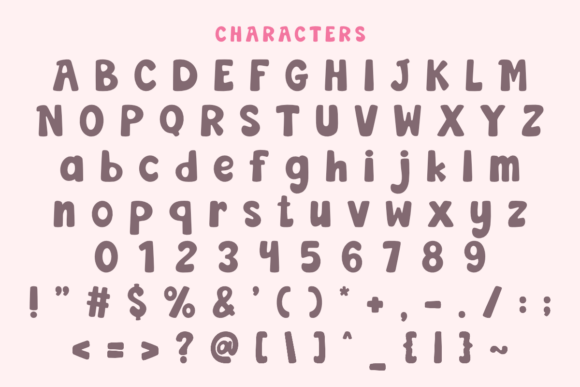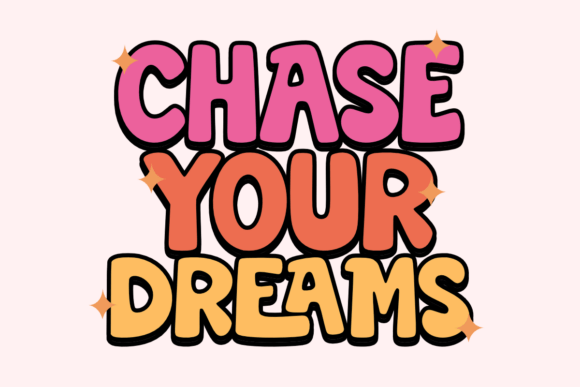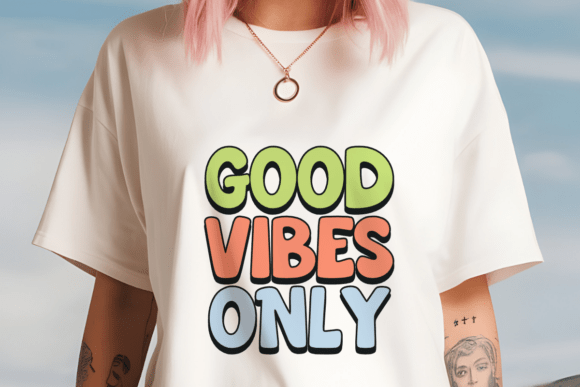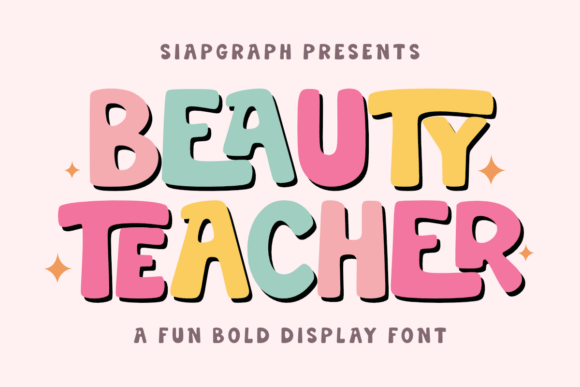
Introduction to Beauty Teacher Font
Beauty Teacher is a fun and bold display font that radiates joy and creativity.
With its chunky and colorful letterforms, this font is perfect for making your designs stand out in a cheerful and friendly way Ideal for branding, classroom projects, children’s books, t-shirts, posters, stickers, invitations, packaging, and digital designs, Beauty Teacher will add a playful and energetic touch to every creation.
Key Features of Beauty Teacher Font
Why Choose Beauty Teacher Font?